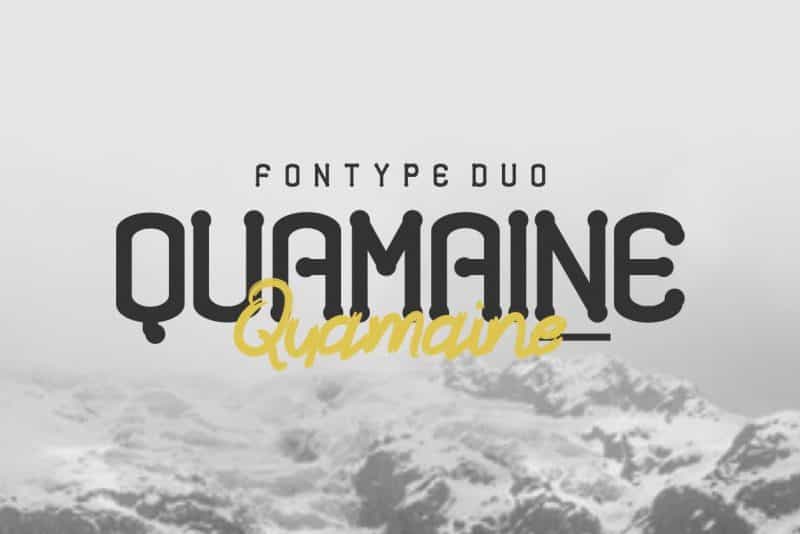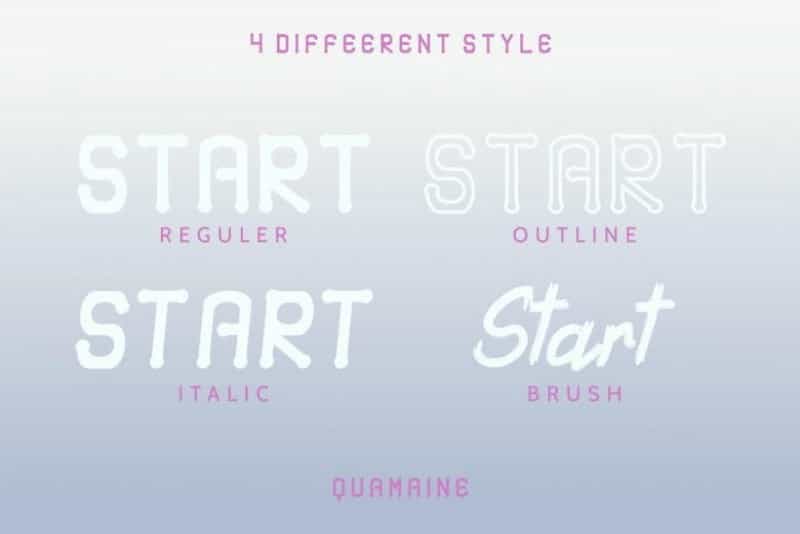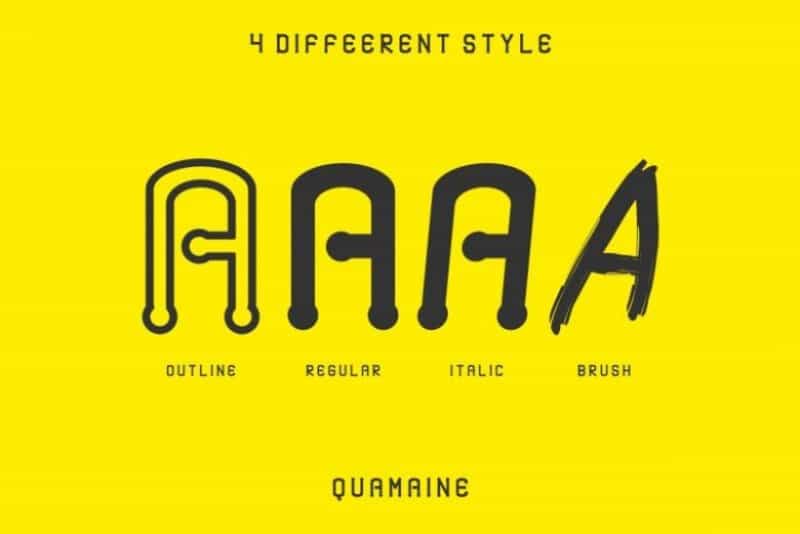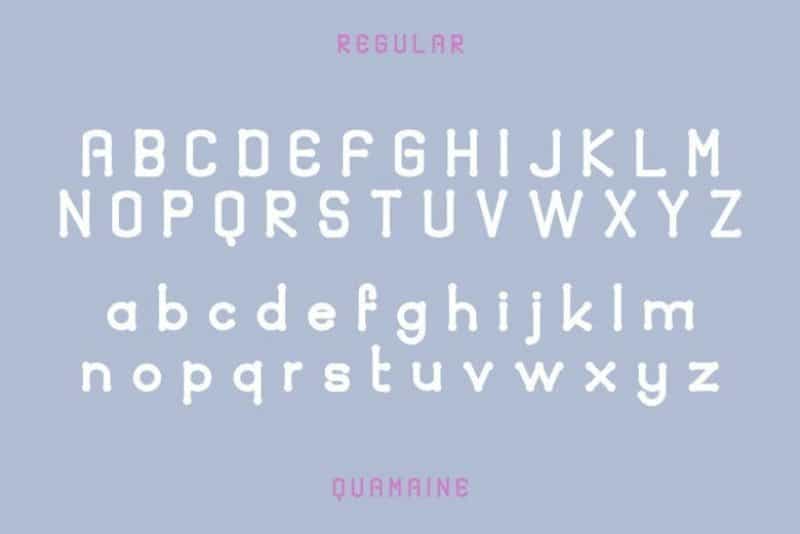
Introducing our newest font : Quamaine! It is 3 Sans Serif and 1 Brush Font. Mixed up beautifully. The sans serif font is made up of regular, italic and outline/stroke. The brush font was handwritten with love.